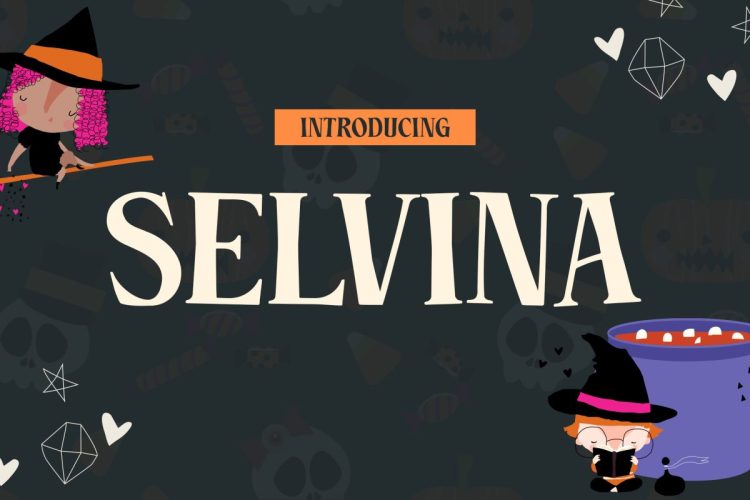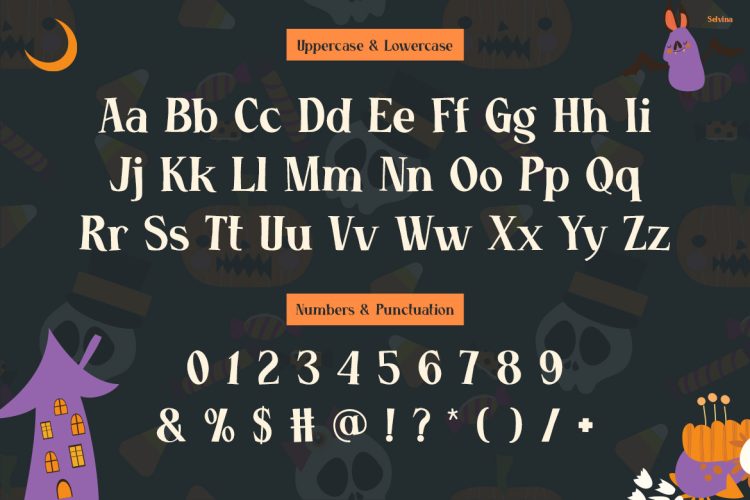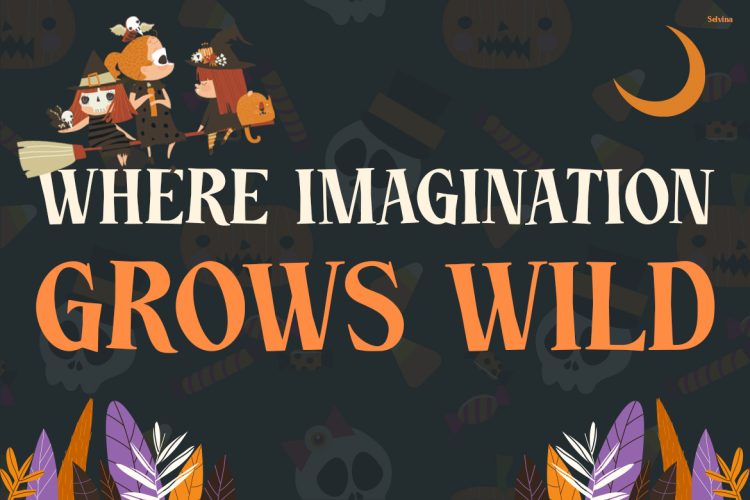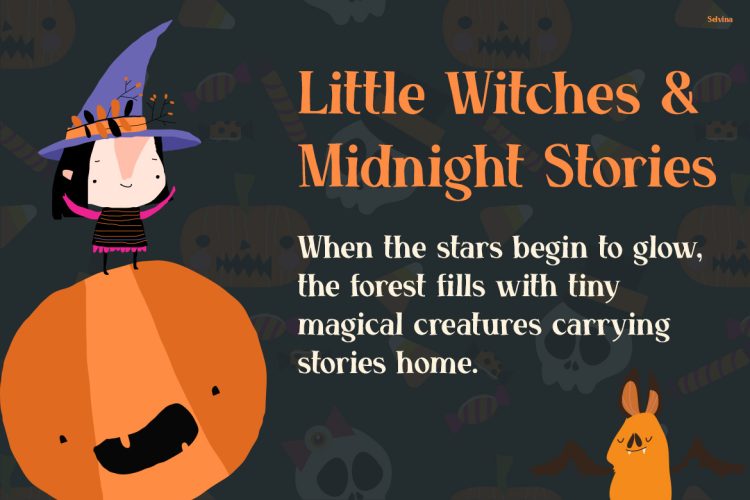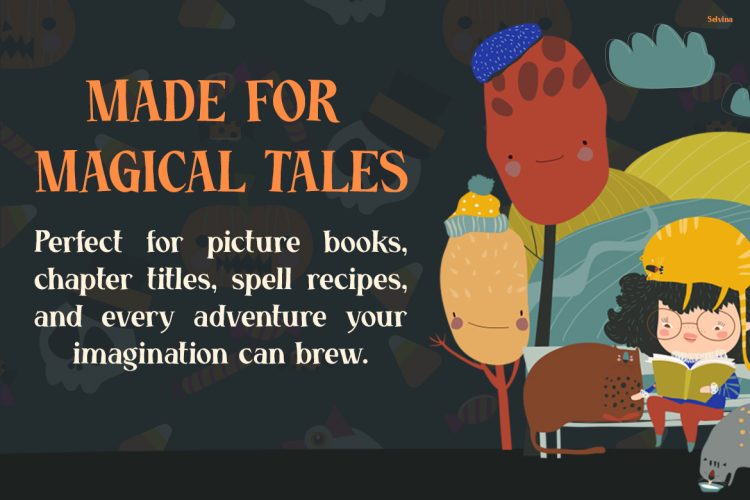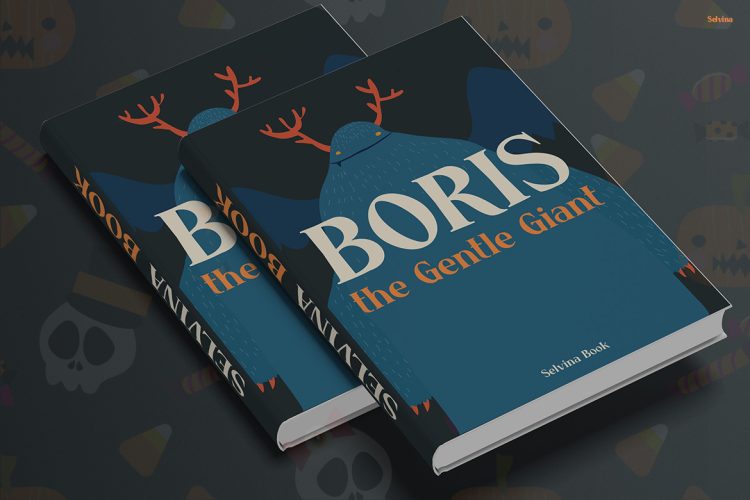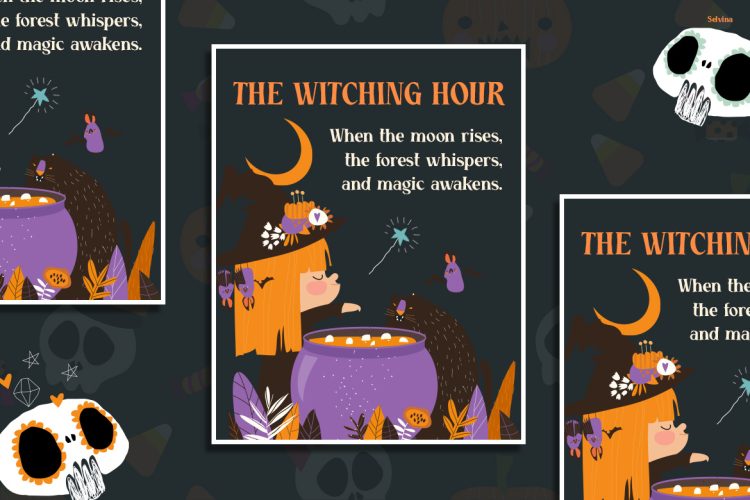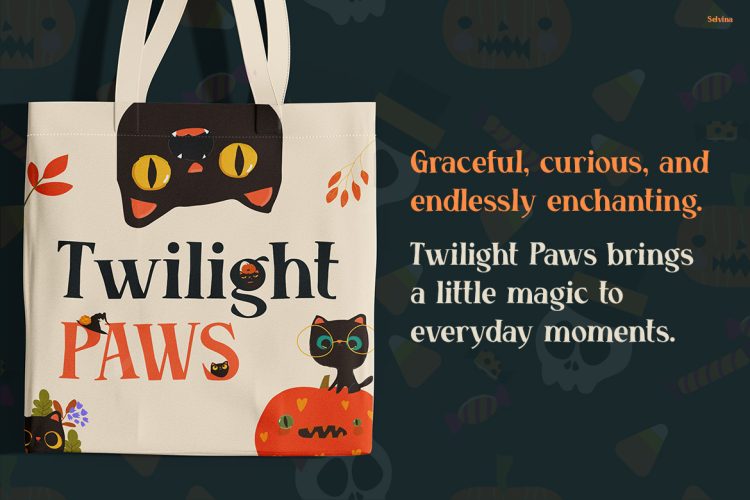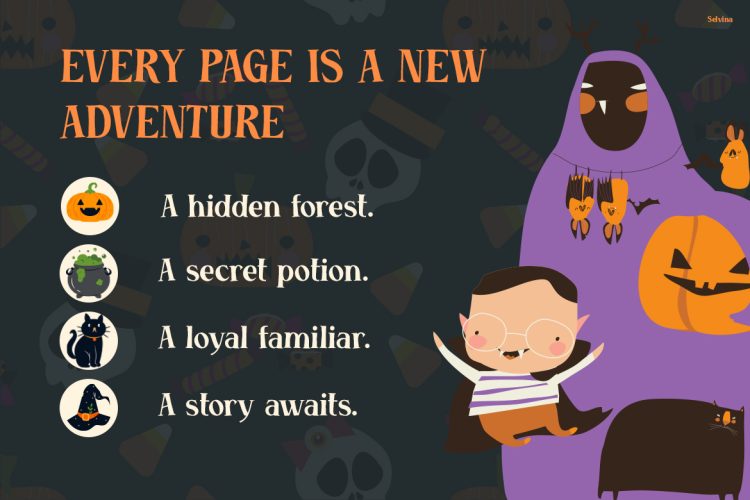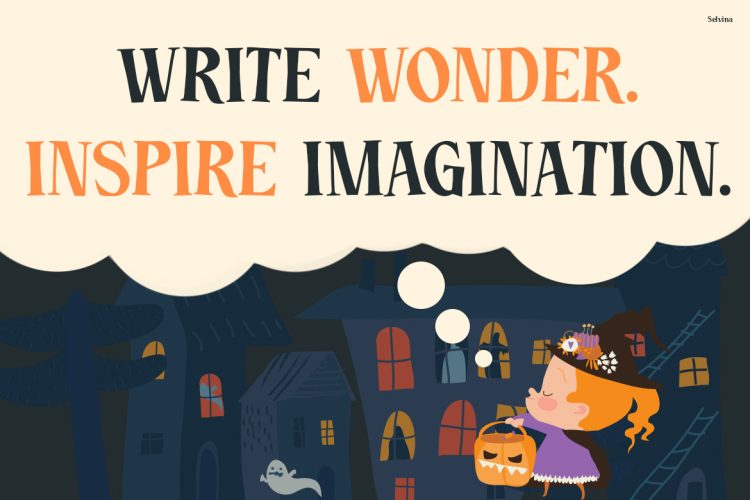
Kids Font Selvina โ Enchanting Kids Storybook Font
Kids Font Selvina is a charming and whimsical display font designed to bring imagination to life. With its elegant letterforms and playful personality, this font instantly creates a magical storybook atmosphere. Moreover, its fairy-tale-inspired details add warmth and creativity to every design. At the same time, the carefully crafted characters maintain excellent readability. As a result, your projects feel both enchanting and professional. Whether you’re creating a children’s book or designing playful branding, Kids Font Selvina helps transform ordinary words into captivating visual stories. Furthermore, its unique aesthetic makes every headline feel more memorable and engaging.
Kids Font Selvina Perfect For
Selvina is ideal for graphic designers, children’s book authors, teachers, publishers, crafters, and creative entrepreneurs. In addition, it is perfect for anyone seeking a font that combines charm, imagination, and versatility. Likewise, brands targeting children and families can use it to create a friendly and welcoming impression.
Best Used For
- Children’s books and storybooks
- Educational materials and worksheets
- Book covers and publishing projects
- Nursery and classroom decorations
- Toy and kids product packaging
- Invitations and party stationery
- Kids branding and logo design
- Social media graphics and merchandise
Additionally, the font works beautifully across both print and digital media. Meanwhile, its playful style helps capture attention quickly. Not only does it enhance visual appeal, but it also strengthens the storytelling element of your designs. Consequently, your creative projects can stand out in a crowded market.
Bring Your Stories to Life
Kids Font Selvina is more than a typeface; it is a creative tool for building magical experiences. Furthermore, it adds personality, warmth, and wonder to every project. Because of its unique balance between elegance and playfulness, it adapts effortlessly to a wide range of creative needs. Therefore, designers can create eye-catching results with confidence. Ultimately, if you want your designs to inspire imagination and leave a lasting impression, Kids Font Selvina is the perfect choice. So don’t waitโadd this enchanting font to your collection today and start creating unforgettable stories.